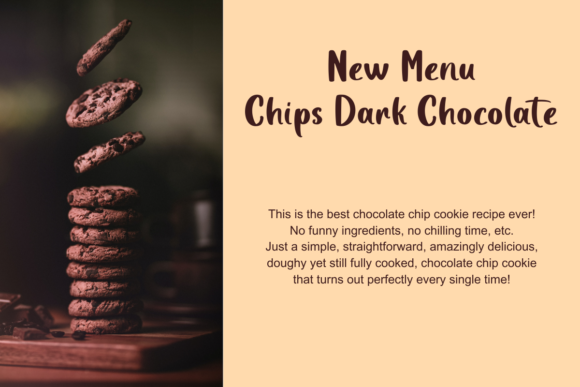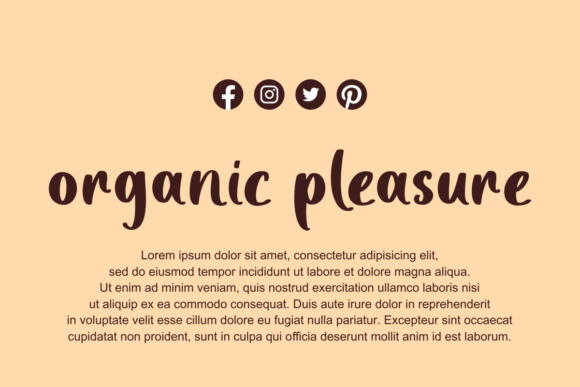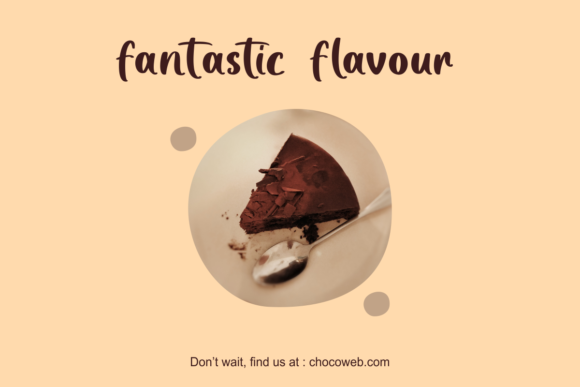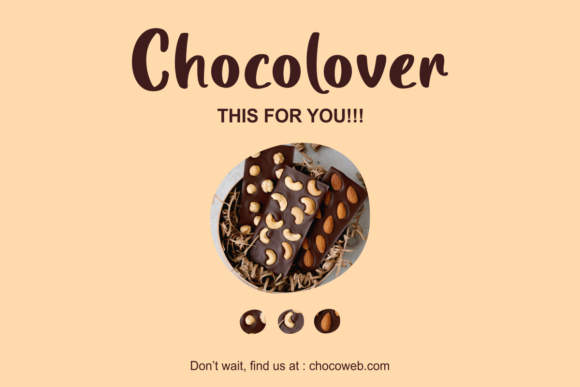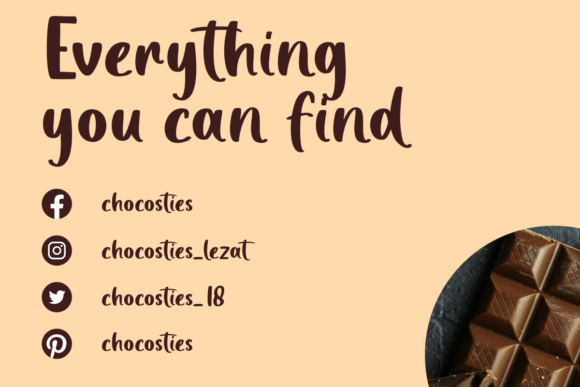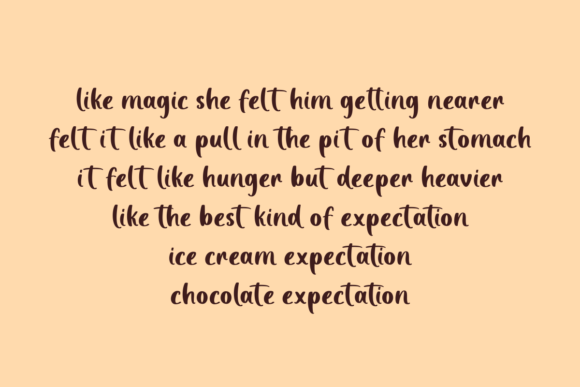
Introducing Choco Chips Font: The Sweetest Addition to Your Design Projects
Are you on the hunt for a font that’s as sweet as it is stylish? Look no further than Choco Chips, a simple yet adorable handwritten font that’s perfect for fashion branding, editorial designs, and so much more. With its smooth curves and effortless charm, Choco Chips is sure to become your new go-to font for a wide range of creative projects.
What Makes Choco Chips Font So Special?
Choco Chips is a one-of-a-kind font that’s defined by its smooth, flowing curves and whimsical feel. This beautiful handwritten font is perfect for designers and crafters who want to add a touch of personality and style to their work. Whether you’re creating a fashion brand, designing an editorial spread, or crafting a social media post, Choco Chips is the perfect choice.
Perfect for Fashion Branding
Fashion branding requires a font that’s both stylish and sophisticated, and Choco Chips delivers on both counts. This gorgeous font is perfect for creating logos, labels, and other branding materials that need to make a statement. With its smooth curves and elegant feel, Choco Chips is sure to elevate your fashion brand and set it apart from the competition.
Great for Editorial Designs
Editorial designs require a font that’s both readable and visually appealing, and Choco Chips fits the bill. This beautiful font is perfect for creating stunning editorial spreads, blog posts, and other written content that needs to capture the reader’s attention. With its whimsical feel and smooth curves, Choco Chips adds a touch of personality and style to any editorial design.
Why Choose Choco Chips Font?
So why choose Choco Chips font for your next design project? Here are just a few reasons why this amazing font is the perfect choice:
- Unique and eye-catching: Choco Chips is a one-of-a-kind font that’s sure to grab attention and make your design stand out.
- Smooth curves: The smooth curves of Choco Chips give it a elegant and sophisticated feel that’s perfect for fashion branding and editorial designs.
- Easy to read: Despite its whimsical feel, Choco Chips is incredibly easy to read, making it perfect for body text and other written content.
- Versatile: Choco Chips can be used for a wide range of design projects, from fashion branding to editorial designs and more.
How to Use Choco Chips Font in Your Design Projects
Using Choco Chips font in your design projects is easy. Here are a few tips to get you started:
- Pair it with bold fonts: Choco Chips looks amazing when paired with bold, sans-serif fonts. Try pairing it with a font like Arial Black or Helvetica Bold for a striking contrast.
- Use it for headings: Choco Chips is perfect for headings and titles, where its smooth curves and whimsical feel can really shine.
- Add it to your branding materials: Choco Chips is a great addition to any branding materials, from logos and labels to business cards and letterheads.
In conclusion, Choco Chips font is a sweet and stylish addition to any design project. With its smooth curves, whimsical feel, and versatility, this gorgeous font is perfect for fashion branding, editorial designs, and so much more. Whether you’re a designer, crafter, or simply someone who loves beautiful typography, Choco Chips is sure to become your new favorite font.